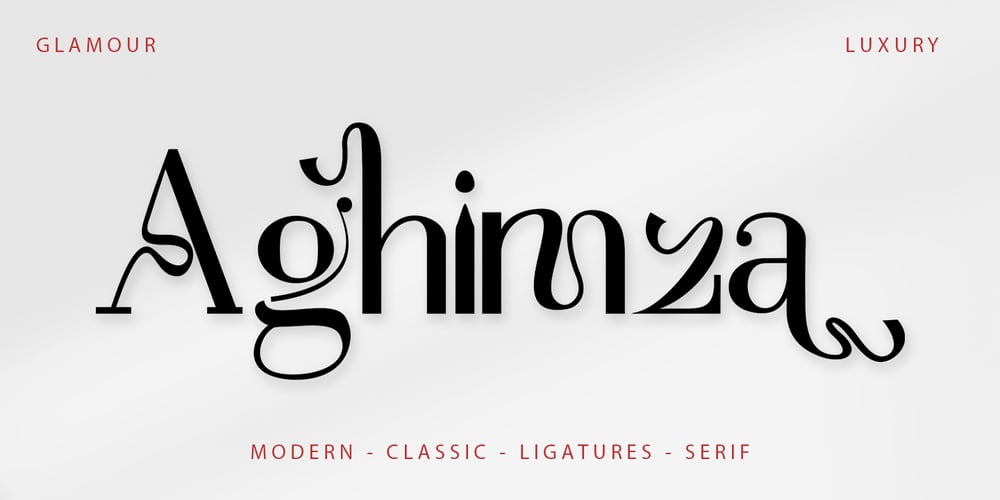
Aghimza Font Family was designed by Teuku Muhammad Zaki and published by Zaki Creative. Aghimza contains 1 styles and family package options. Aghimza a stylish OpenType rich serif with letters that seem to dance and twist harmoniously together to form unique & elegant typography designs. A large selection of interwoven Opentype ligatures and alternates, means ample selection and variety in your finished look. To access these OpenType features, you will need Opentype capable software such as : Word, Textedit, Photoshop, Sketch, Pages, Keynote, Numbers, iBooks Author, QuarkXPress, Indesign and Illustrator. A wide range of useful glyphs are included – see preview image of all glyphs. Aghimza is also included full set of: uppercase and lowercase letters-multilingual symbols-numerals-punctuation-stylish alternates-ligature Wish you enjoy our font and if you have a question, don’t hesitate to drop message & I’m happy to help ๐